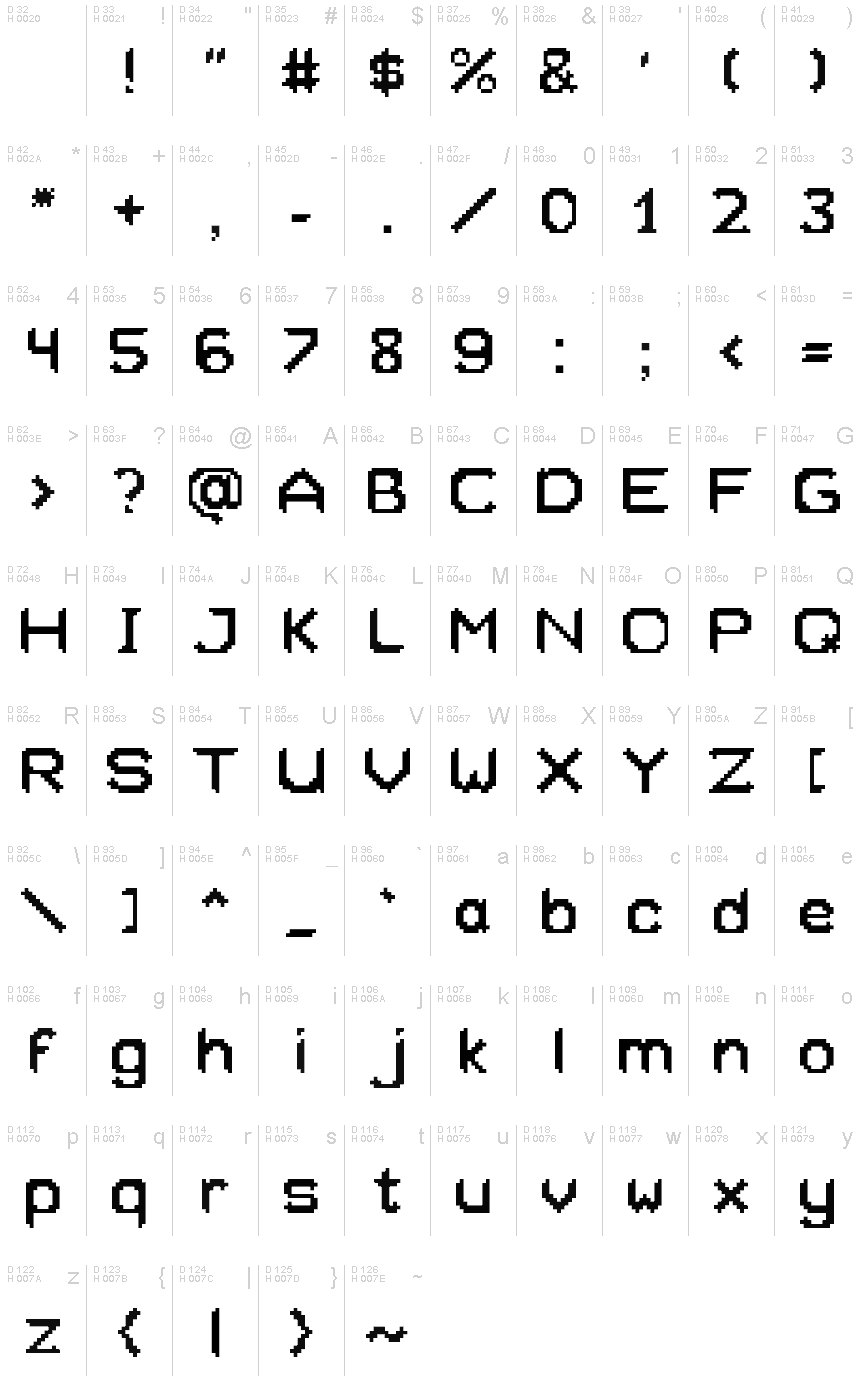
Xeliard
Xeliard is a font inspired by classic computer fantasy role-playing games. It's a pixelart font that is designed for use in retro-themed games, websites, etc.